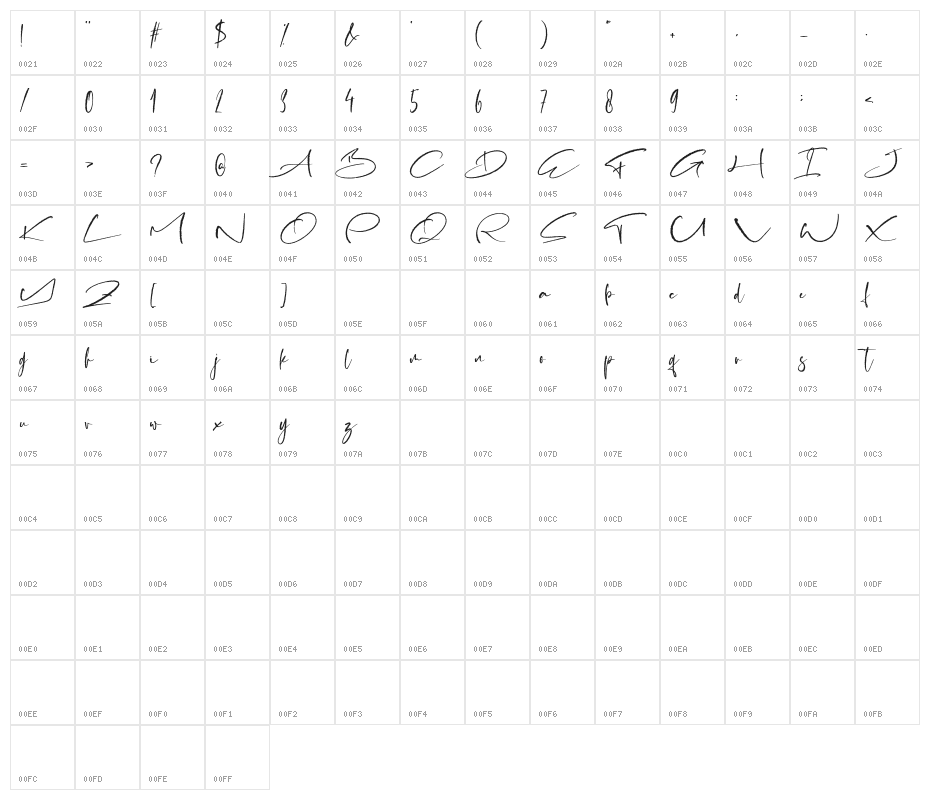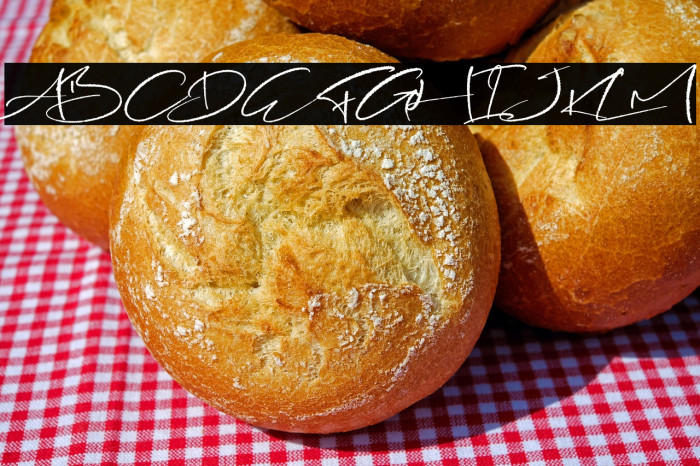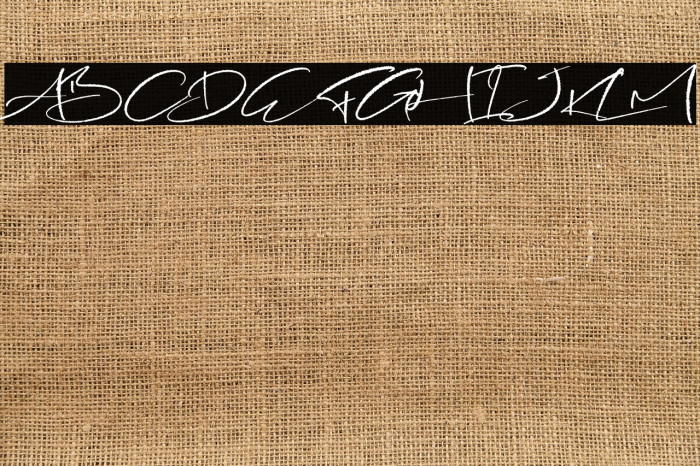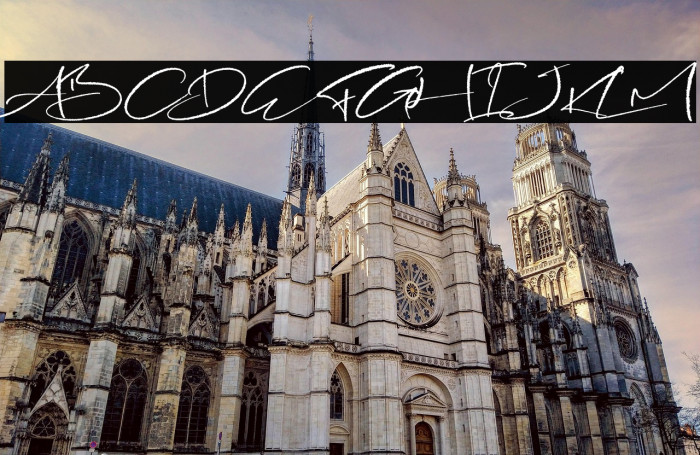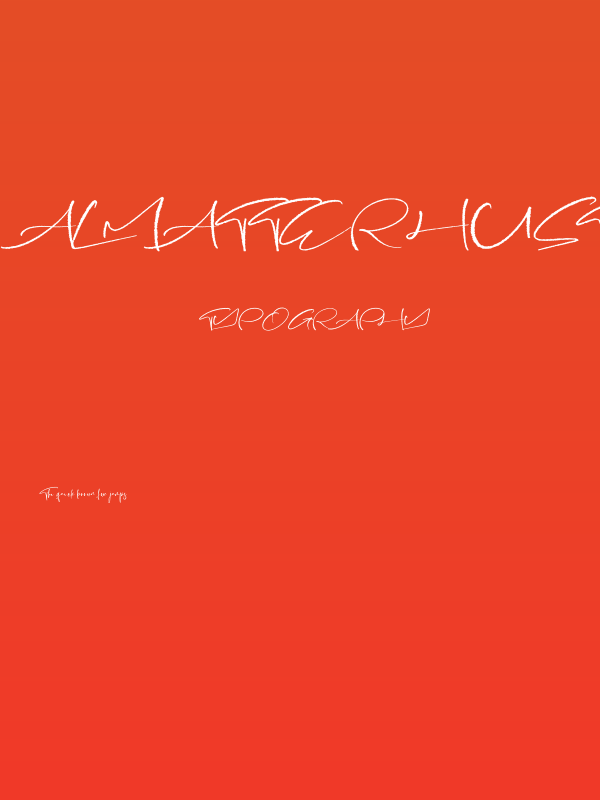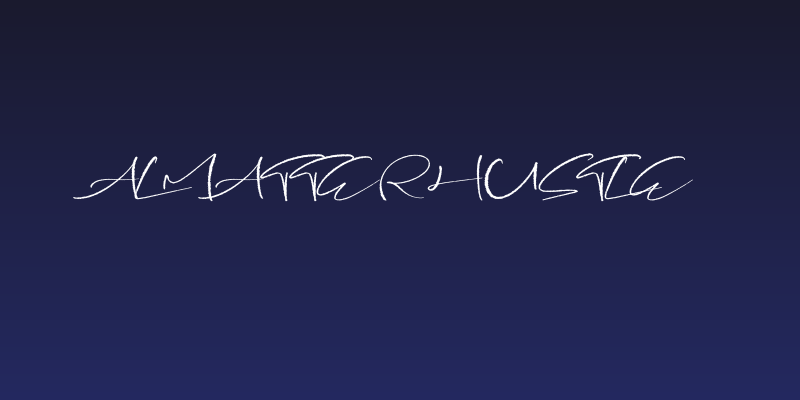
Almatter Hustle Font
Almatter Hustle Description
This font exudes a dynamic and energetic vibe with its fluid, handwritten style. The uppercase letters are characterized by sweeping, elongated strokes that give a sense of motion and flair. The lowercase letters maintain a consistent flow, with some letters featuring playful loops and curves. The numerals are bold and slightly irregular, adding to the font's casual and artistic appeal. Special characters are creatively integrated, maintaining the overall aesthetic. This font is perfect for projects that require a personal touch, such as invitations, branding, or artistic designs.
| Use Case | Logos, Headlines, Artistic designs |
| Proposed Projects | Ideal for invitations, branding, artistic designs, and personal projects. |